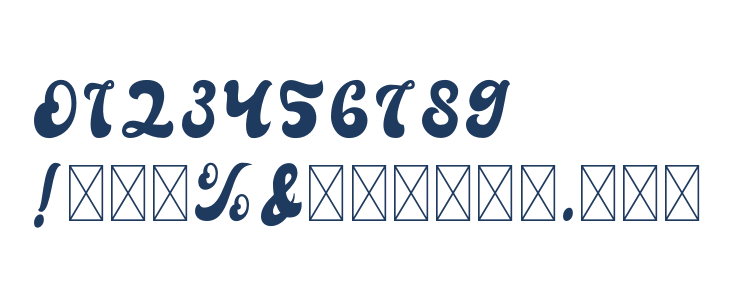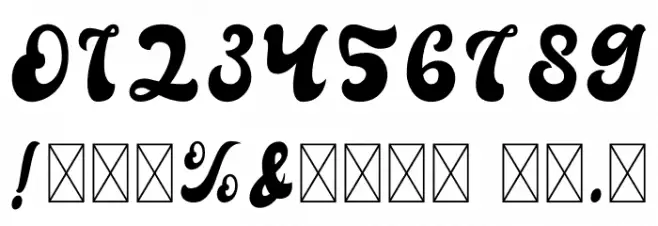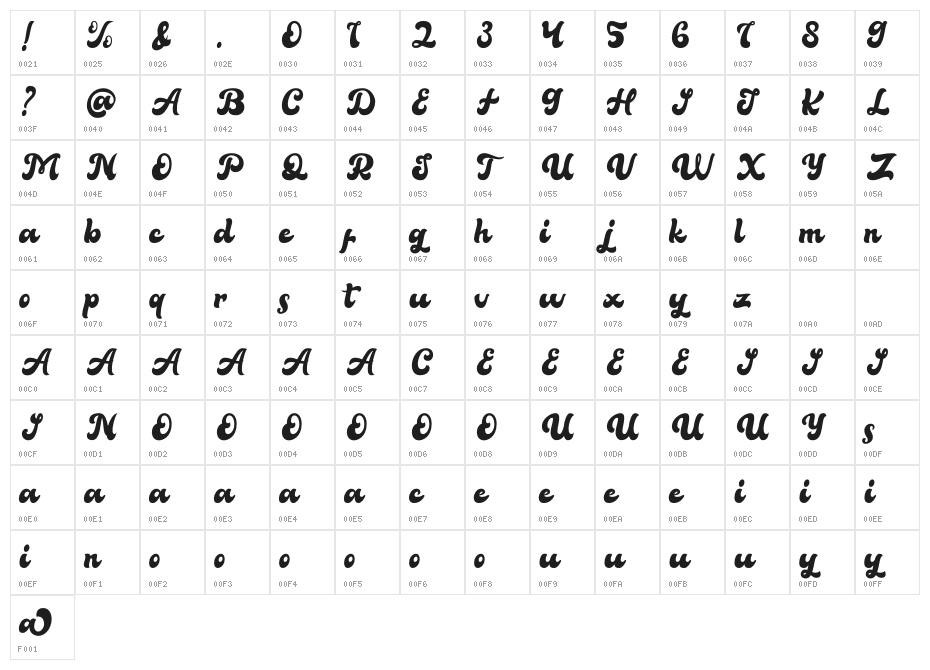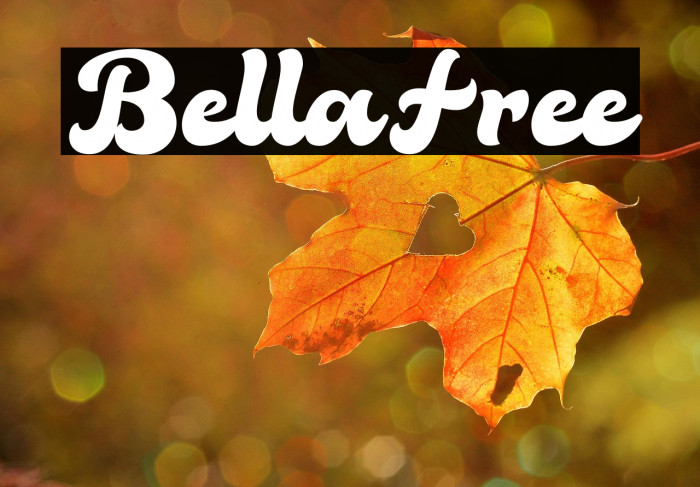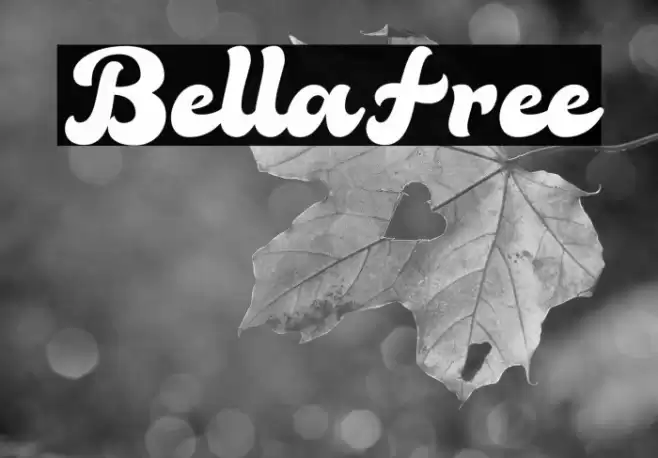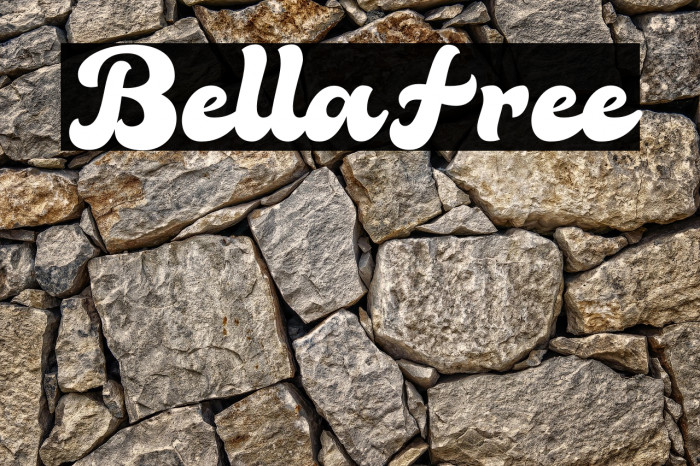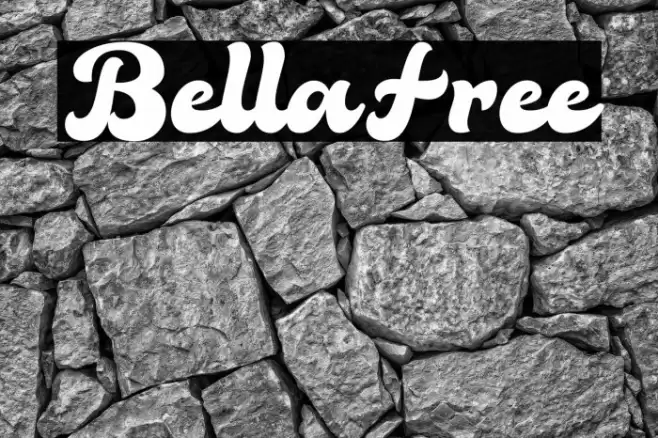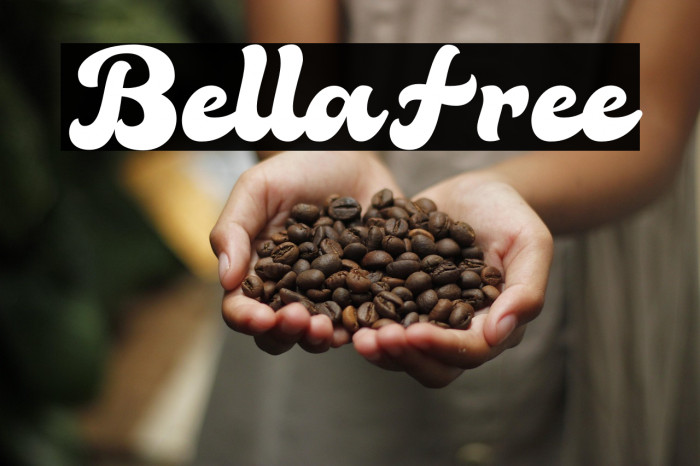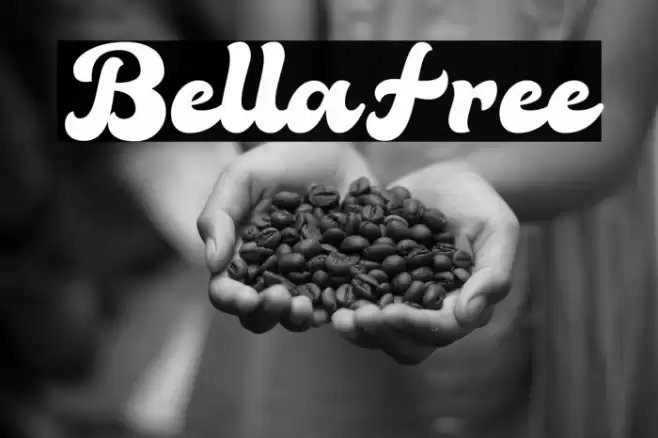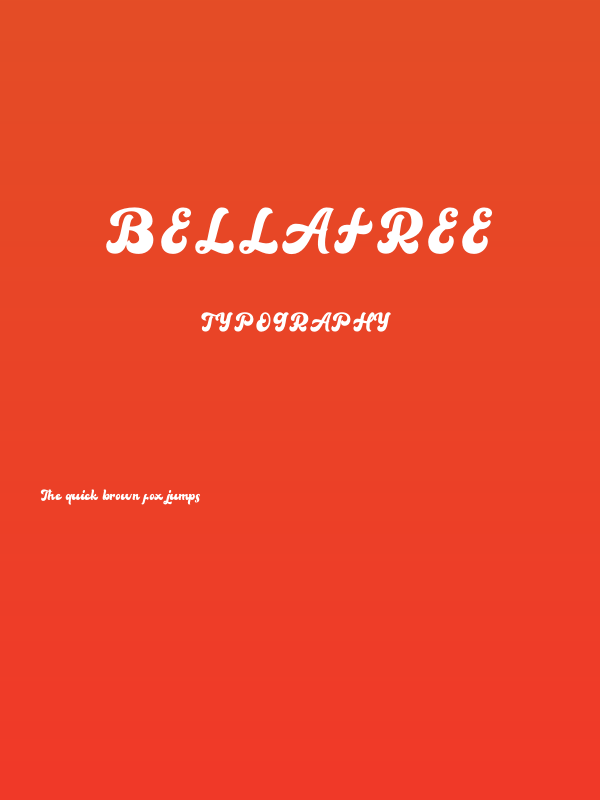
BellaFree Font
BellaFree Description
This font features a bold and playful script style with a strong presence. The characters are interconnected with smooth, flowing curves, creating a sense of movement and energy. The uppercase letters are slightly more ornate, while the lowercase letters maintain a consistent, rounded form. The numbers follow the same playful style, making them easily recognizable. The special characters are designed to match the overall aesthetic, ensuring a cohesive look across all text elements.
Use CaseLogos, Headlines, Invitations
Proposed ProjectsIdeal for branding, packaging, invitations, and playful graphic design projects.